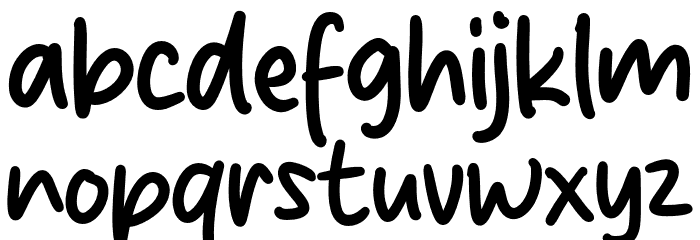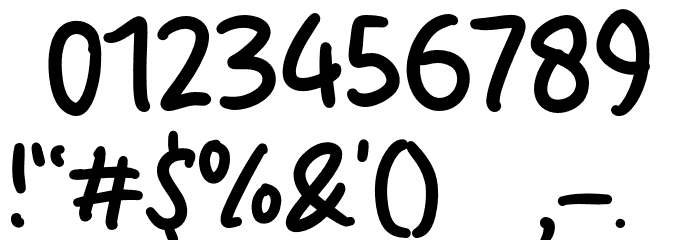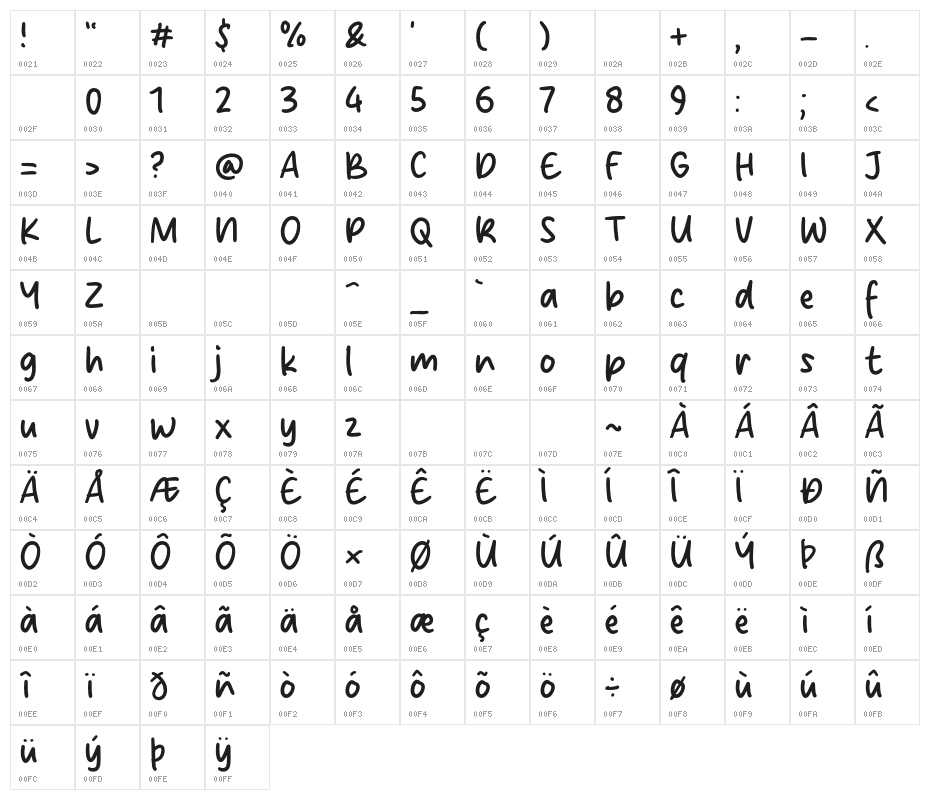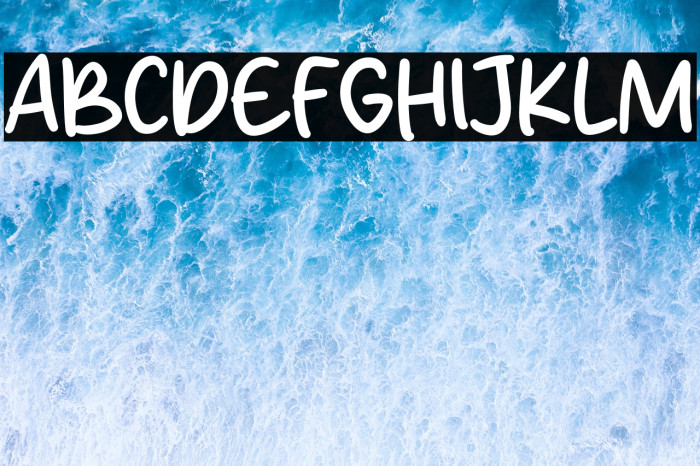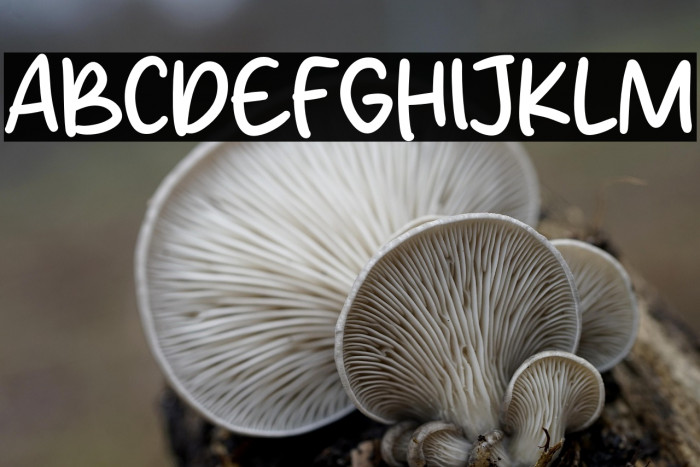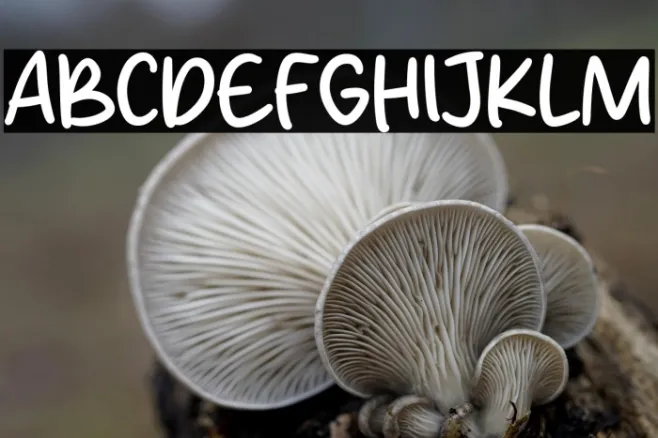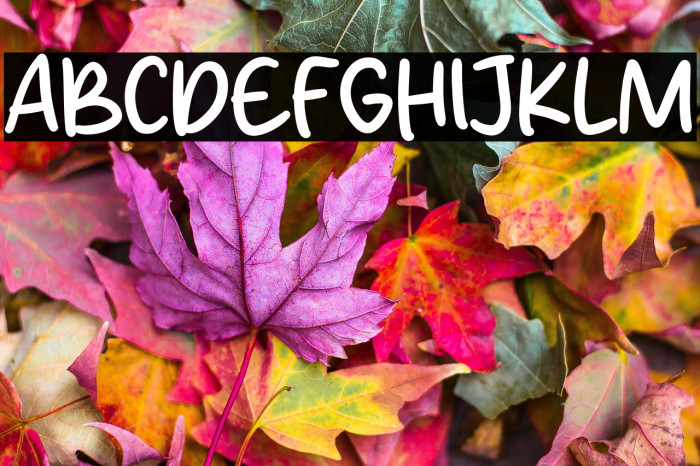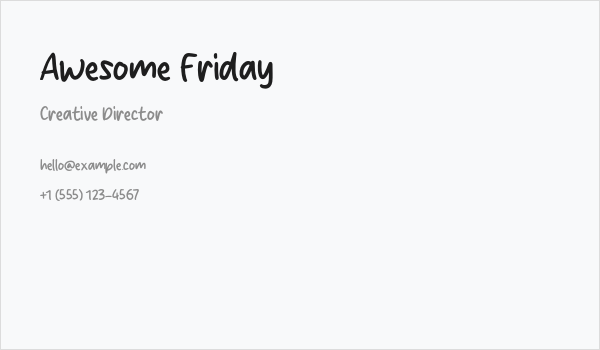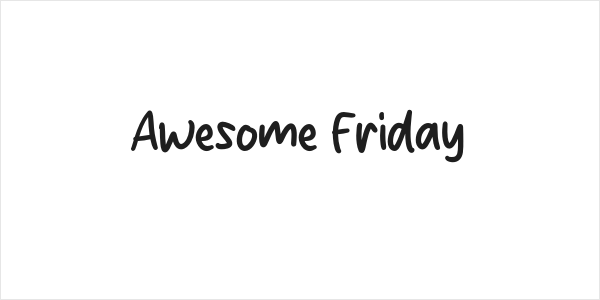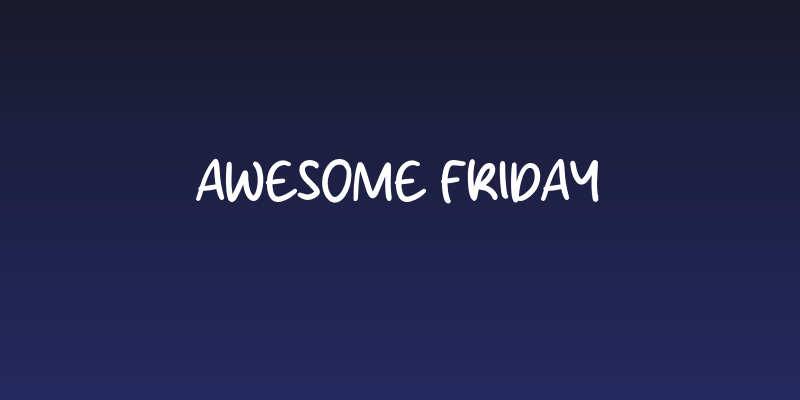
Awesome Friday Font
This font exudes a playful and casual handwritten style, characterized by its smooth, rounded edges and consistent stroke width. The letters are slightly slanted, giving a dynamic and lively appearance. The uppercase and lowercase letters maintain a harmonious balance, with a slight variation in height that adds to the font's informal charm. The numerals and special characters are crafted with the same fluidity, ensuring a cohesive look across all text elements. This font is perfect for projects that require a personal touch, such as greeting cards, invitations, or social media graphics. Its legibility and friendly demeanor make it suitable for both digital and print media.
A playful, casual handwritten font with smooth, rounded edges and consistent strokes.
- Font: Awesome Friday
- Proposed Projects: Ideal for greeting cards, invitations, social media graphics, and personal branding.
- Category: Handwritten
- Overall Style: Casual
- Use Case: Headlines, Logos, Informal Text